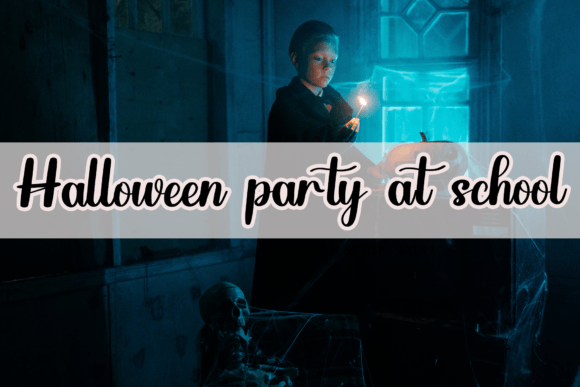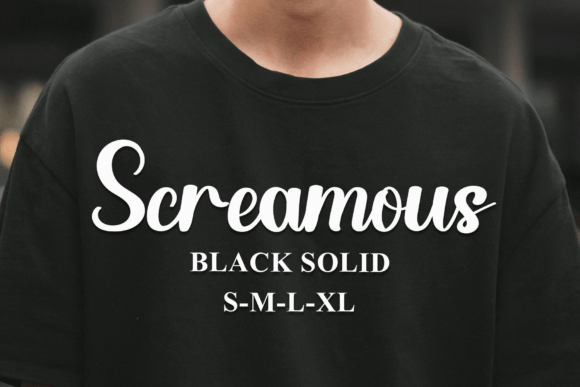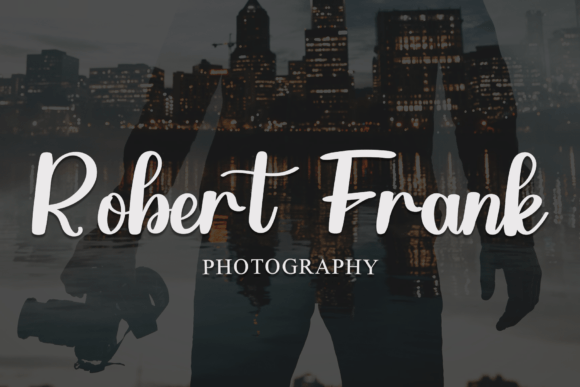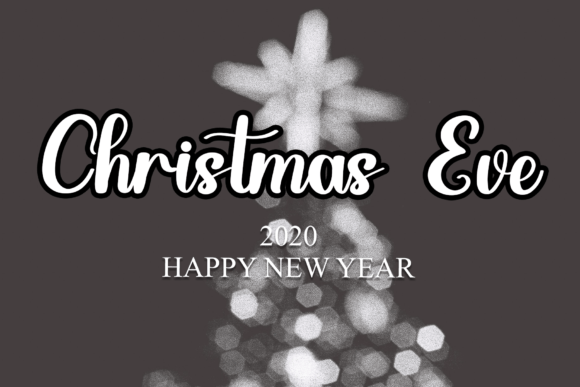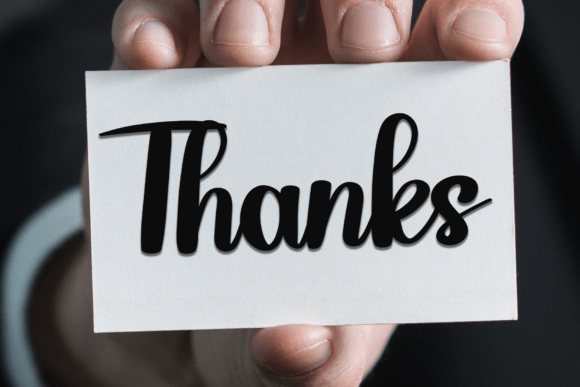
Introduction to Halloween Scream Font
As you sit down at your desk, surrounded by half-finished projects and scattered design resources, you can’t help but feel a spark of creativity ignite within you. The Halloween season is just around the corner, and with it comes a flood of festive ideas and inspiration. But what’s missing from your design arsenal? A typeface that truly captures the whimsical spirit of the holiday, that’s what.
Enter the enchanting Halloween Scream Font, a high-quality design resource that adds a touch of magic to your creative projects. With its decorative elements and playful flair, this font is perfect for greeting cards, gift tags, and any other holiday-themed project that requires a dash of whimsy. Whether you’re a seasoned designer or just starting out, the Halloween Scream Font is an invaluable asset to have in your toolkit.
Key Features of Halloween Scream Font
- High-quality, spooky design resource ideal for creative projects like haunted houses, spooky decorations, or horror-themed movies.
- Features a transparent background, making it easy to overlay on any image or design without compromising its aesthetic appeal.
- Includes a range of glyphs and characters to help designers create a wide variety of spooky and eerie effects.
- High-resolution design (300 DPI) ensures crisp and clear display on various mediums, from print to digital applications.
- Perfect for designers looking for a unique and creative way to add a touch of Halloween spirit to their projects.
Honest Review: Halloween Scream Font
I recently had the chance to work with the Halloween Scream Font, and I must say it’s a real treat for designers. The font is perfect for adding a spooky touch to your creative project.
- ✨ High-quality design: The font is well-crafted, with a clear and readable design that’s perfect for both digital and print projects.
- ✨ Transparent background: The font includes a transparent background option, which is perfect for designers who want to create a spooky effect without the distraction of a solid background.
- ⚠️ Limited font styles: While the font is great for adding a spooky touch, it’s limited to a single style, which may not be suitable for designers who want more versatility.
Overall, I’m impressed with the Halloween Scream Font, and I would recommend it to designers who are looking for a high-quality, free font to add a spooky touch to their creative project. Just be aware of the limitations, and use it responsibly.
Tips for Getting the Most Out of Halloween Scream Font
To get the most out of the Halloween Scream Font, use it in combination with other design elements, such as spooky images and creative backgrounds. You can also experiment with different font sizes and colors to create a unique and high-quality design.
The Halloween Scream Font is perfect for a variety of creative projects, including:
Halloween party invitations and decorations
Spooky and creative social media posts
Haunted house and attraction designs
Spooky and eerie website designs